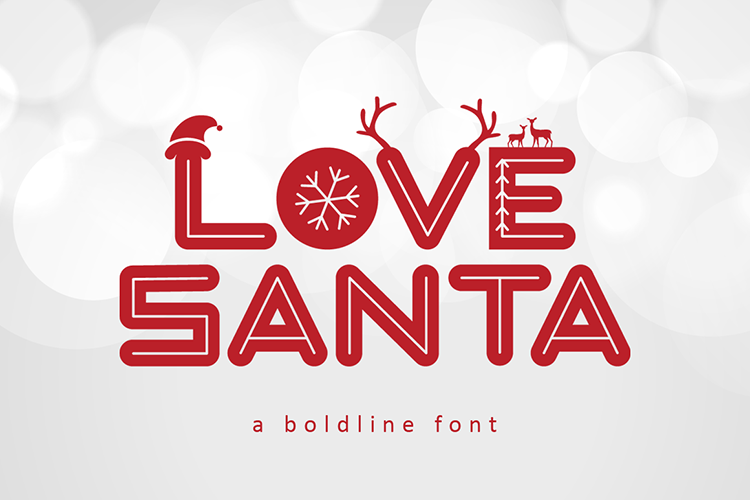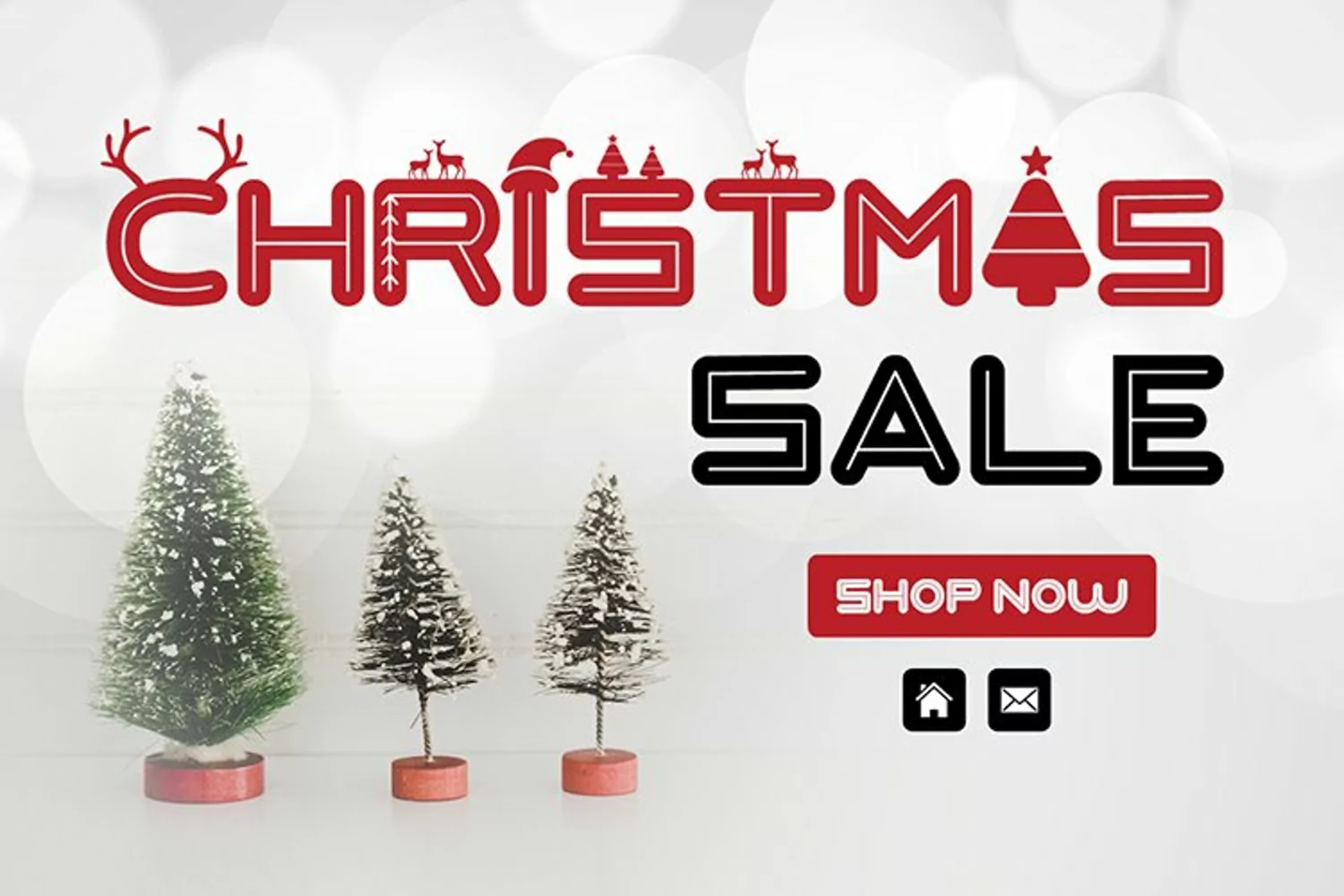
Hello Everyone's, Introducing a new font Love Santa, is a special font for Christmas. A bold line wi… Read more
TEXT FOR CHRISTMAS
Love-Santa
Love Santa